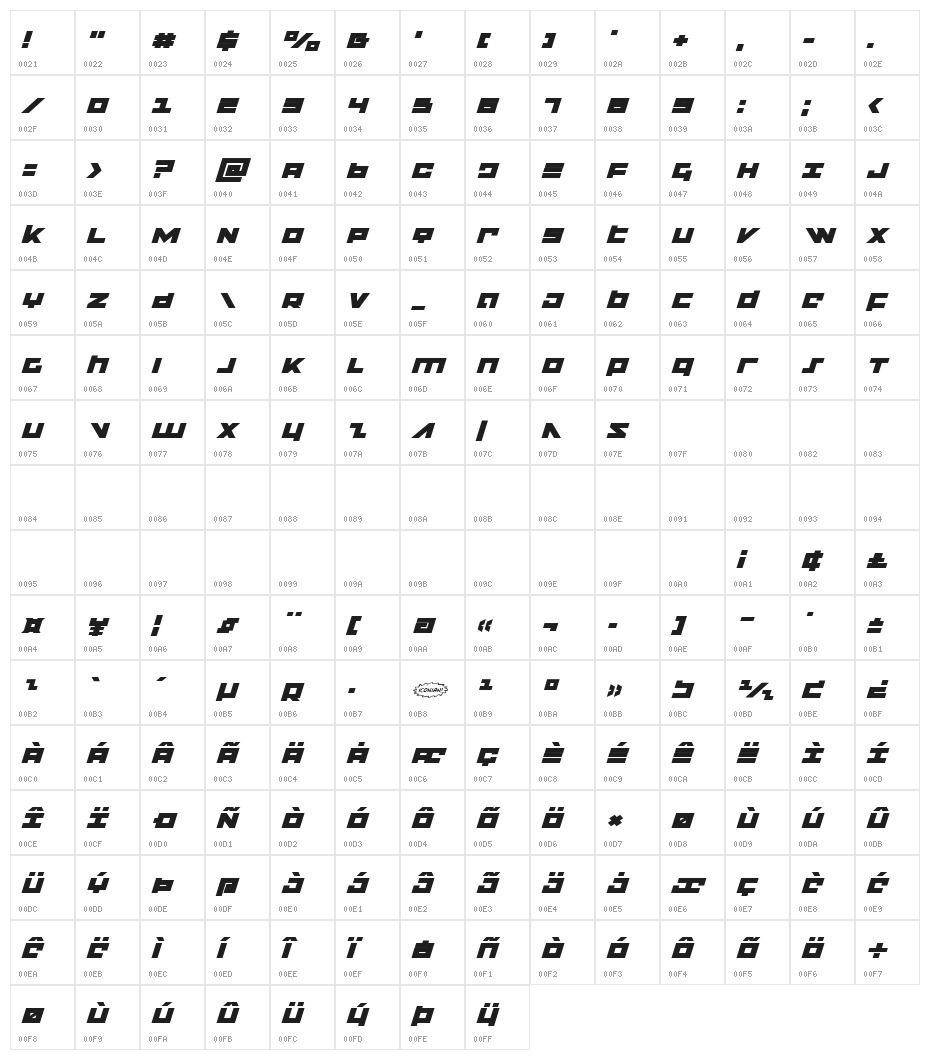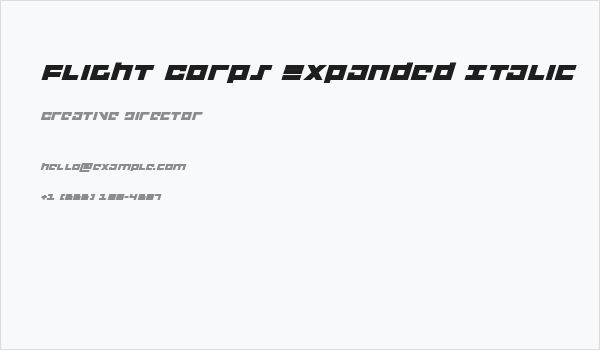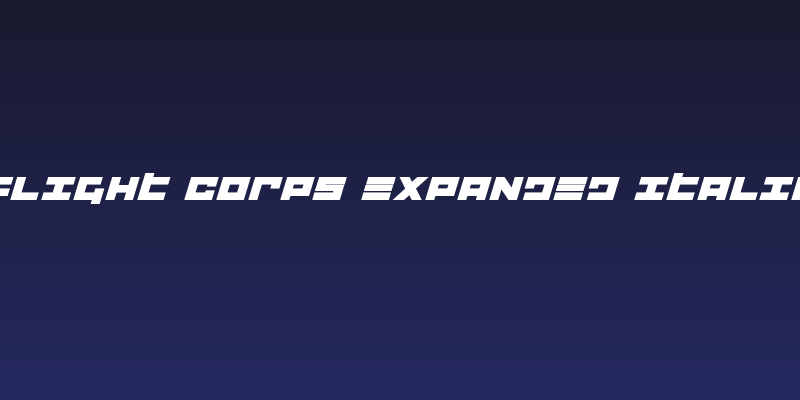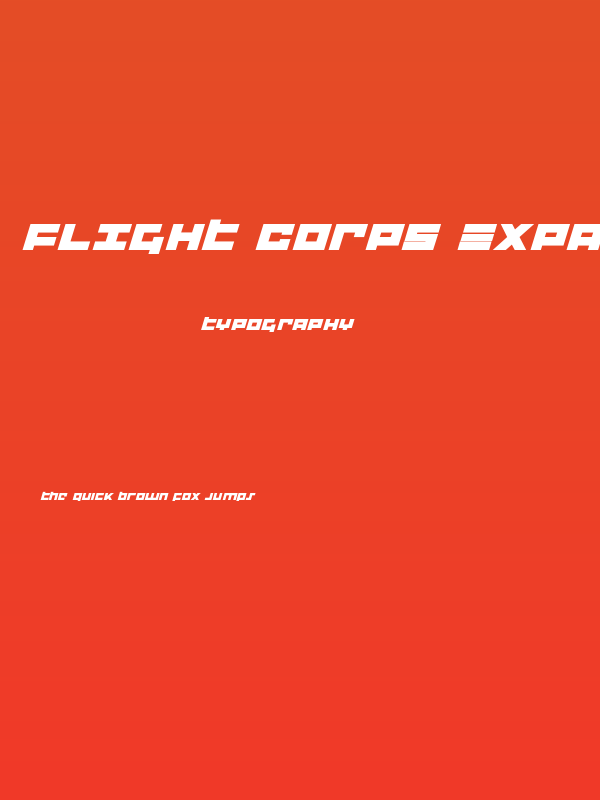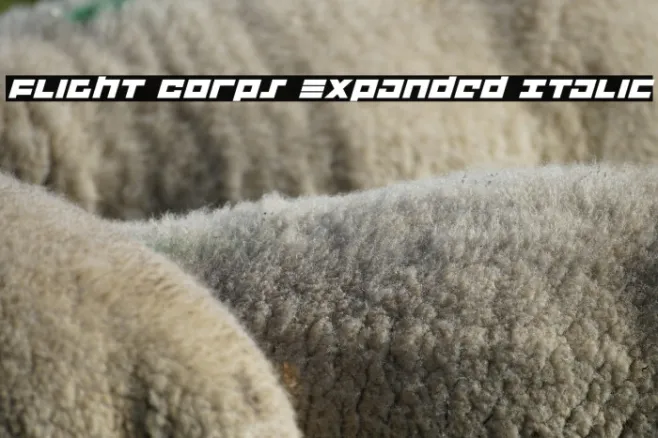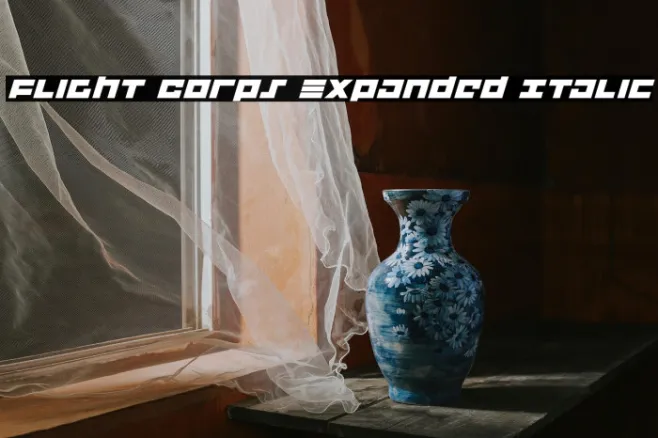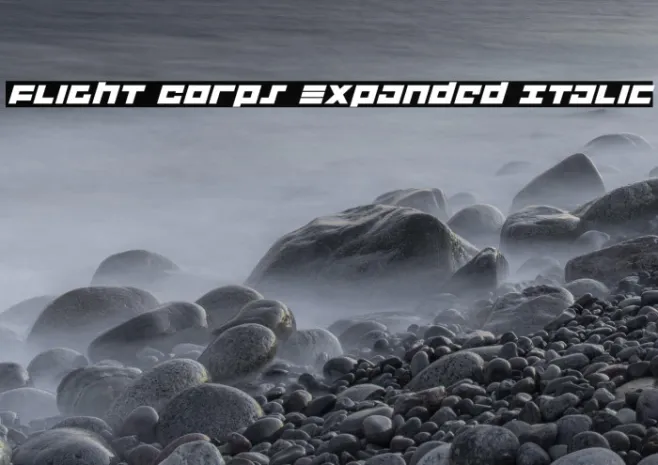
Flight Corps Expanded Italic Font
Flight Corps Expanded Italic Description
This font features a bold, geometric style with a distinct italic slant, giving it a dynamic and futuristic appearance. The characters are expanded, providing a wide stance that enhances readability and impact. The angular design elements and sharp edges contribute to a modern, tech-inspired aesthetic. Each letter is crafted with precision, maintaining a consistent stroke weight throughout. The numerals and special characters follow the same design principles, ensuring uniformity across all glyphs. This font is ideal for projects that require a strong, contemporary look.